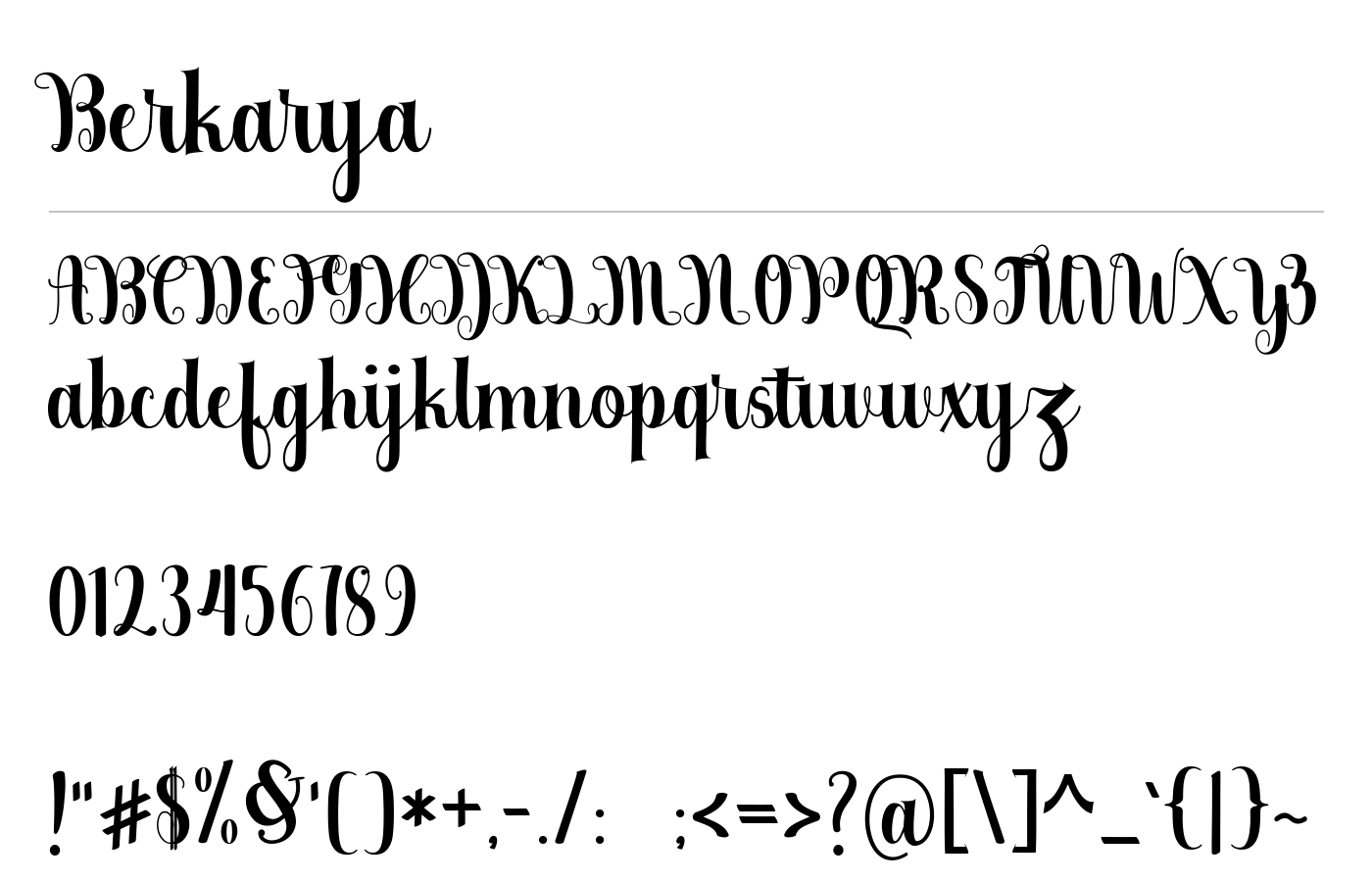
Berkarya is a decorative serif font with a distinctive blend of bold strokes and elegant swirls, giving it a playful yet refined personality. Its tall, narrow letterforms with unique curls and flourishes make it perfect for eye-catching headlines, logos, and creative branding that want to convey charm and sophistication. This font works best in designs where a touch of individuality and artistic flair is desired, especially in fashion, invitations, and boutique packaging.
Berkarya Font
About Berkarya Font